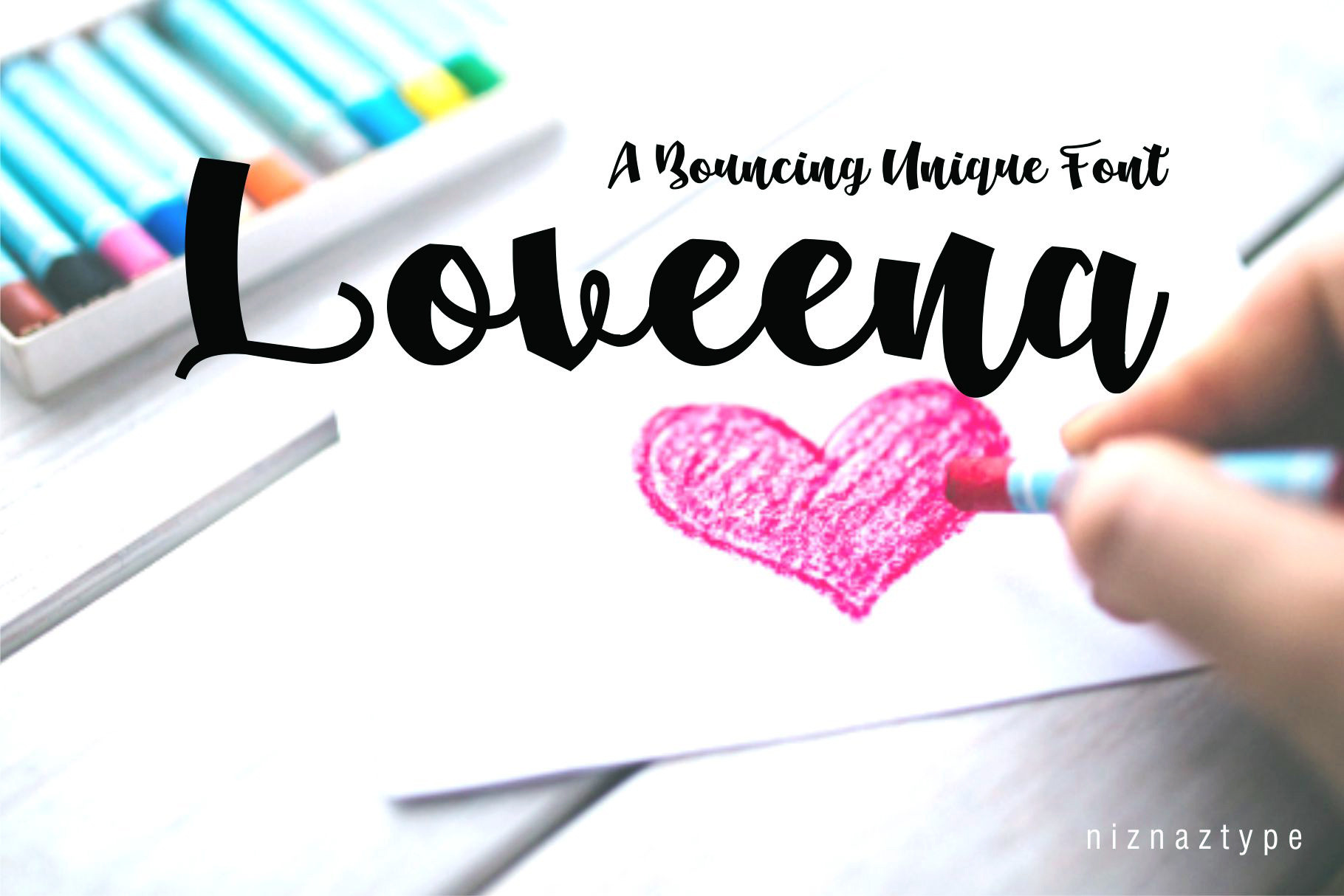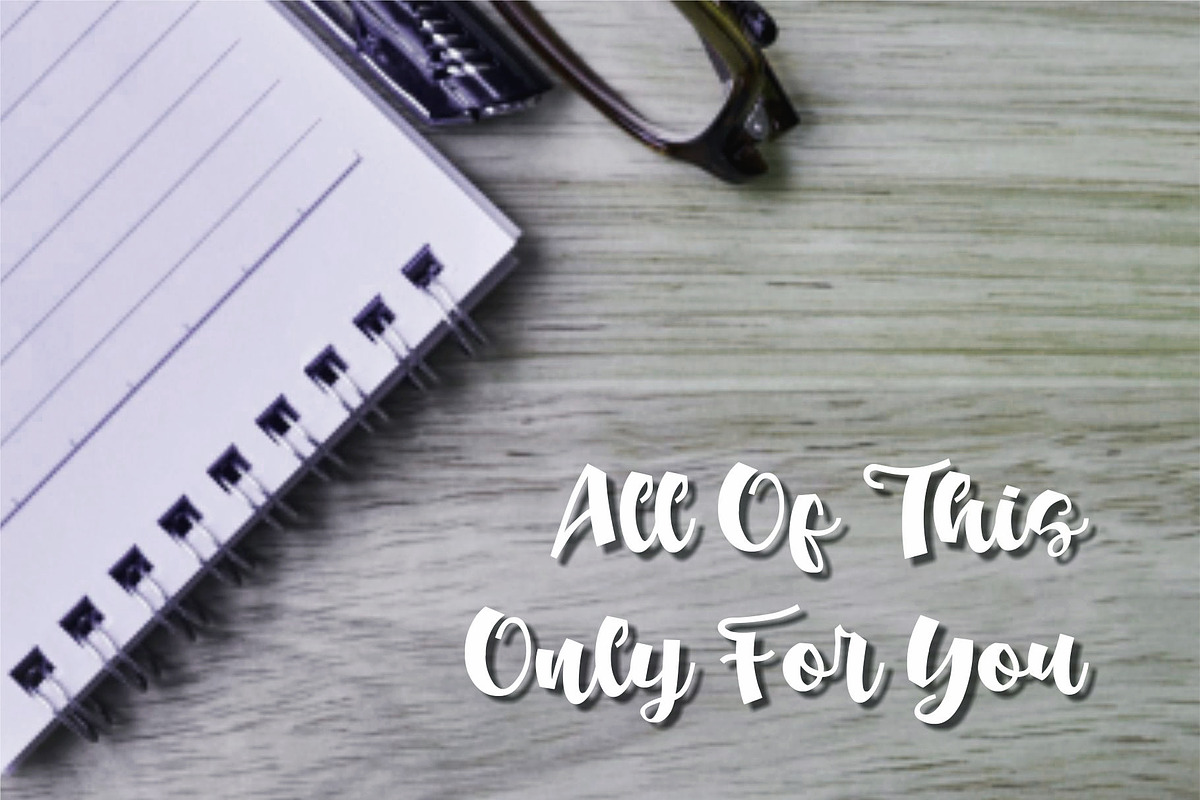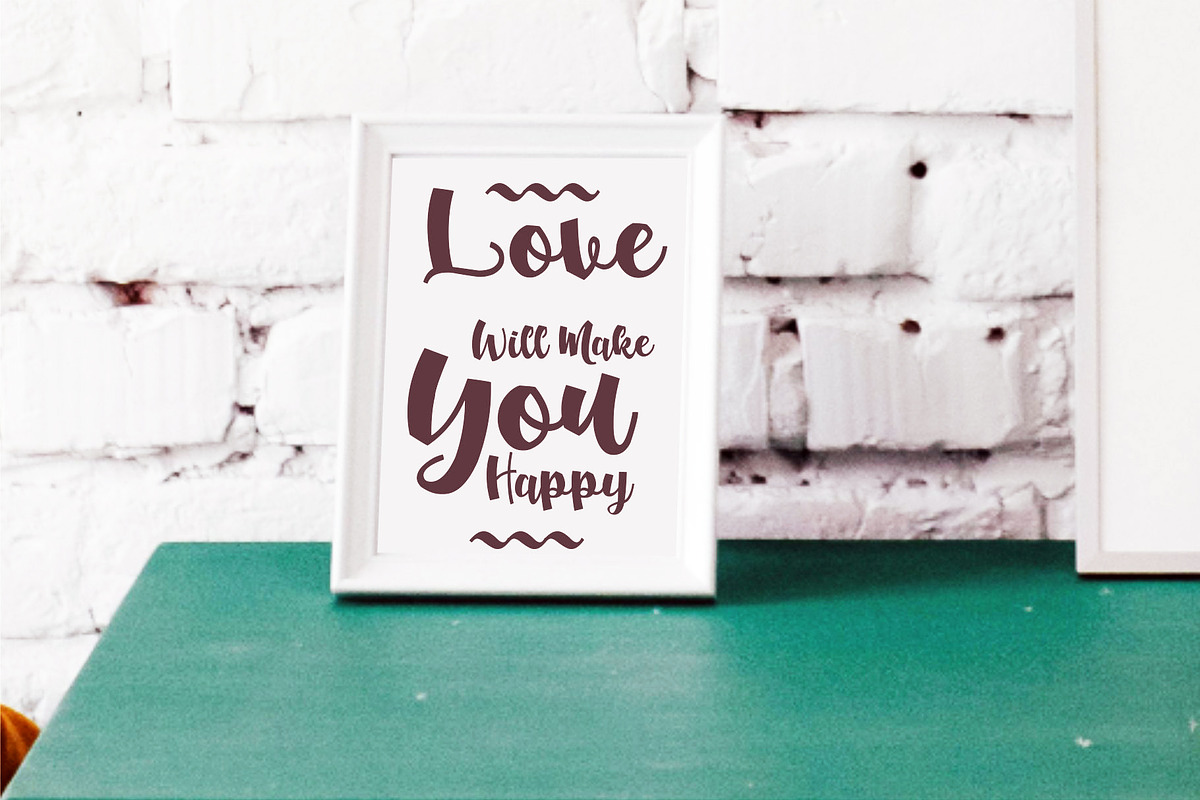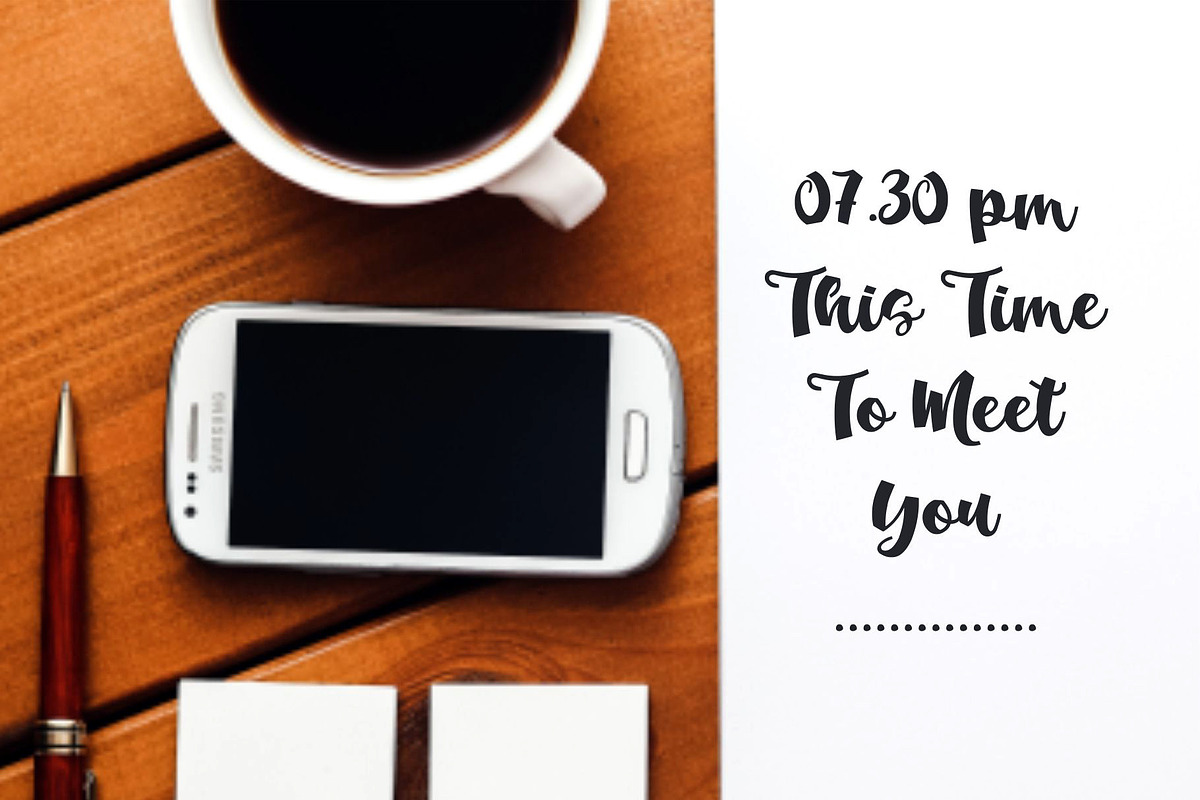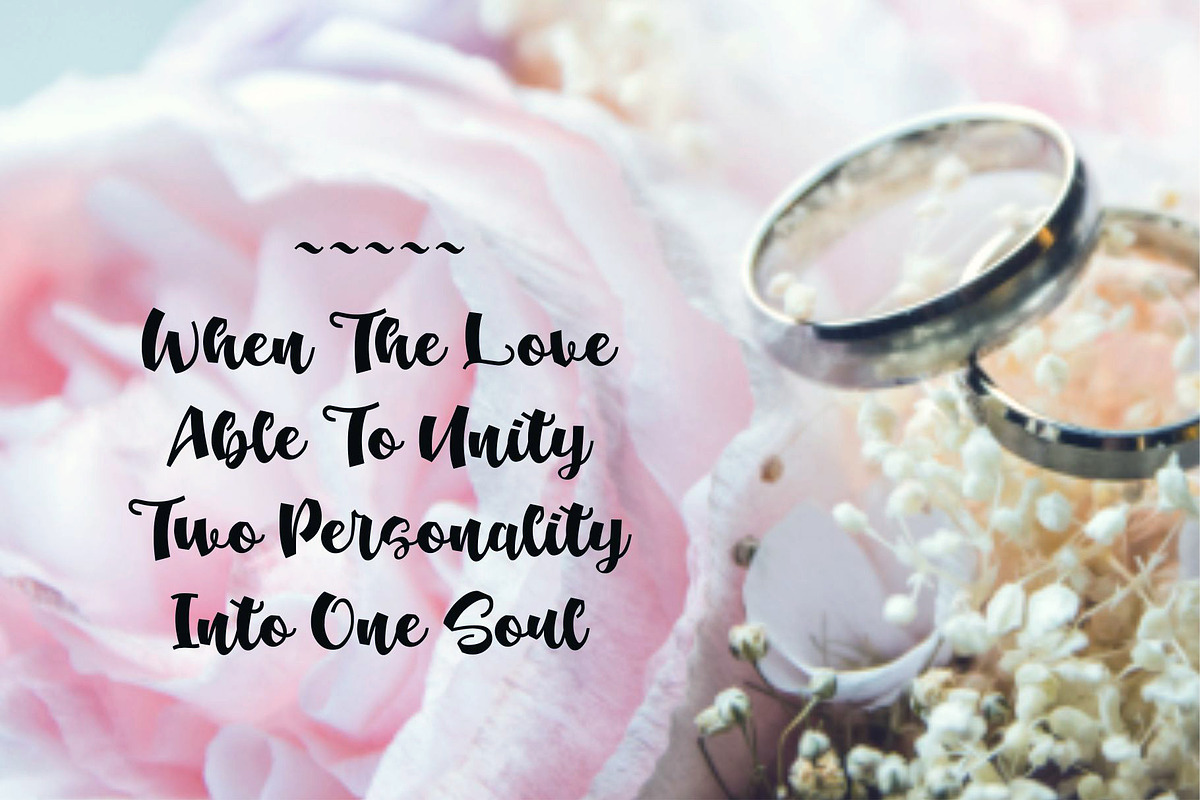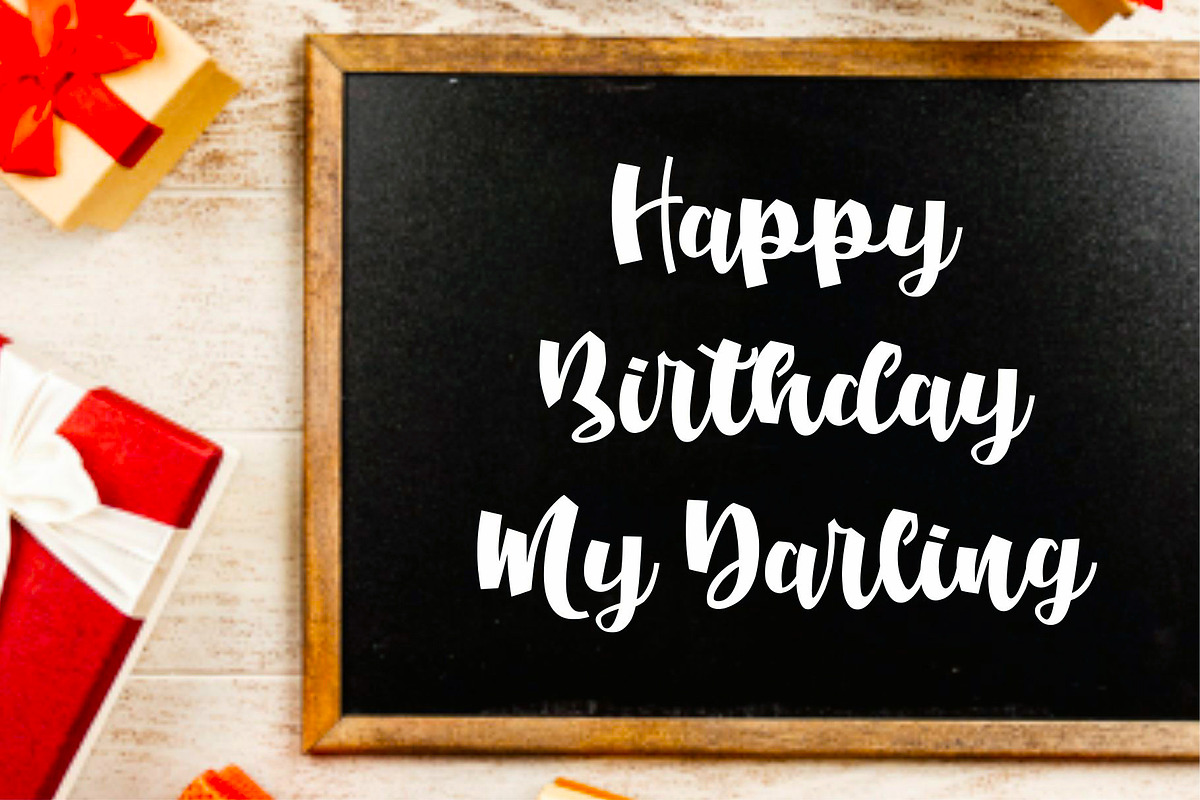
Loveena - A Script Bouncing Font
Loveena font is a script typeface with bouncing glyph character. Suitable for a desin theme like love, wedding, invitation, fun etc. Loveena have more 250 glyphs. Its contain :
- Uppercase, lowercase, punctuation, numeral & multilingual